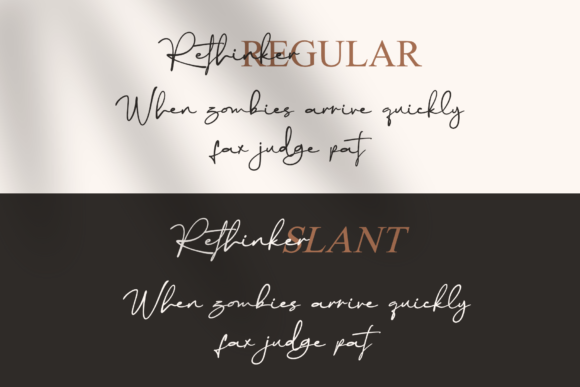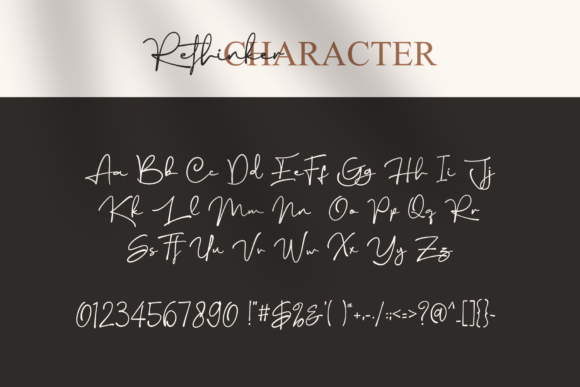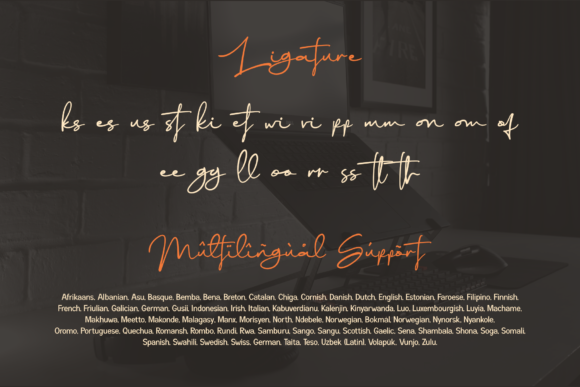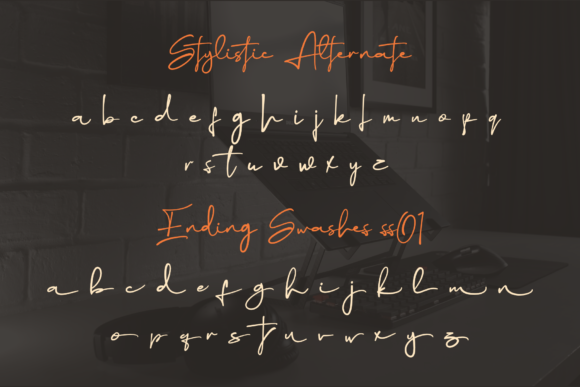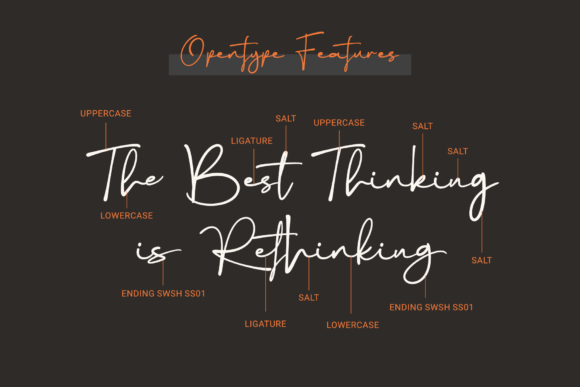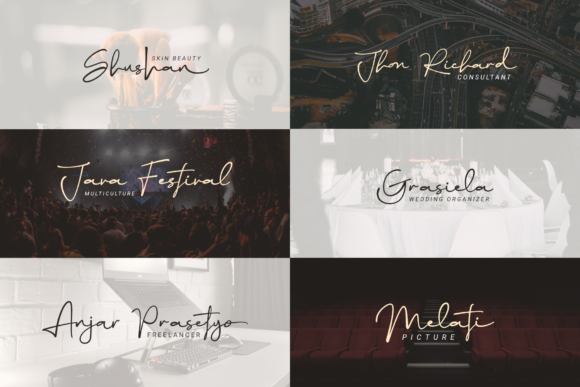
Introduction to Rethinker Font
Have you ever been stuck on a creative project, staring at a blank page, and desperately searching for the perfect font to bring your idea to life? That’s exactly where Rethinker Font comes in – a delicate and elegant handwritten font that will elevate your design and make it truly special.
As a valuable design resource, Rethinker Font offers a unique combination of style and versatility, making it a must-have for any creative project. Its distinct and well-balanced letters create a masterpiece that will add a touch of sophistication to your design. Plus, with its PUA encoded design, you can easily access all the glyphs and swashes, giving you the freedom to experiment and create something truly unique.
Key Features of Rethinker Font
- High-quality design resource ideal for creative projects, including logos, branding, and digital art.
- Unique, modern design with a transparent background, making it perfect for use on any background or surface.
- Comes in 6 different weights, from Light to Bold, allowing for flexibility and customization in your design projects.
- Perfect for use in digital and print design, including business cards, brochures, and websites, due to its clean and sophisticated design.
Honest Review: Rethinker Font
I recently had the chance to work with the Rethinker Font for a creative project and I must say, it was a great experience. This font has been a game-changer for me, especially when it comes to designing materials that require a high level of sophistication.
- ✨ Beautiful and elegant design that adds a touch of professionalism to any project
- ✨ Compatible with a wide range of design software, making it easy to integrate into your workflow
- ✨ Offers a transparent background option, which is perfect for creating clean and minimalistic designs
One of the things I appreciate most about the Rethinker Font is its high quality. The font is crisp and clear, making it perfect for use in a variety of creative contexts. Plus, it’s a free download, which is a huge bonus for designers on a budget.
- ⚠️ Limited customization options, which may not be ideal for designers who like to get creative with their typography
- ⚠️ Not as extensive a character set as some other fonts on the market
Overall, I’m thoroughly impressed with the Rethinker Font and would highly recommend it to anyone looking for a high-quality design resource. While it may not be perfect, it’s definitely a valuable addition to any designer’s toolkit.
Tips for Getting the Most Out of the Rethinker Font
For a transparent background, use the font on a background image or a solid color. Experiment with different font sizes and styles to add visual interest to your design. The Rethinker Font is a versatile design resource that’s perfect for a wide range of creative projects.
The Rethinker Font is ideal for headings, titles, and body text in any creative project. It’s also great for logos, branding, and marketing materials. With its high-quality design and transparent background, the Rethinker Font is a valuable addition to any design resource library.